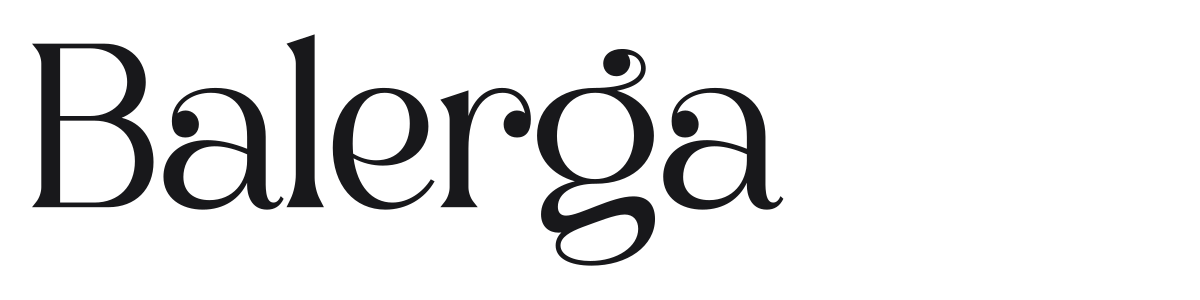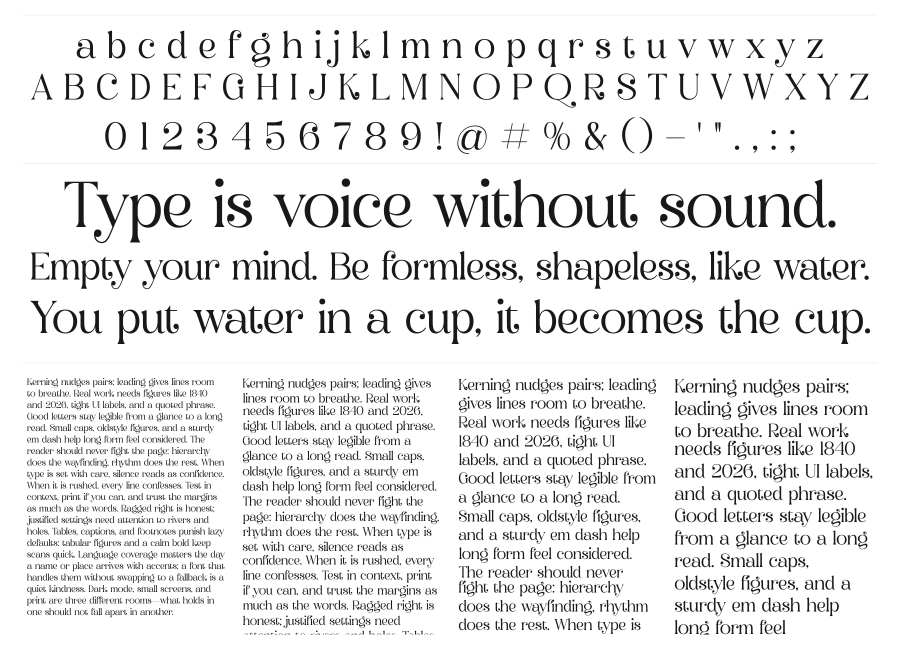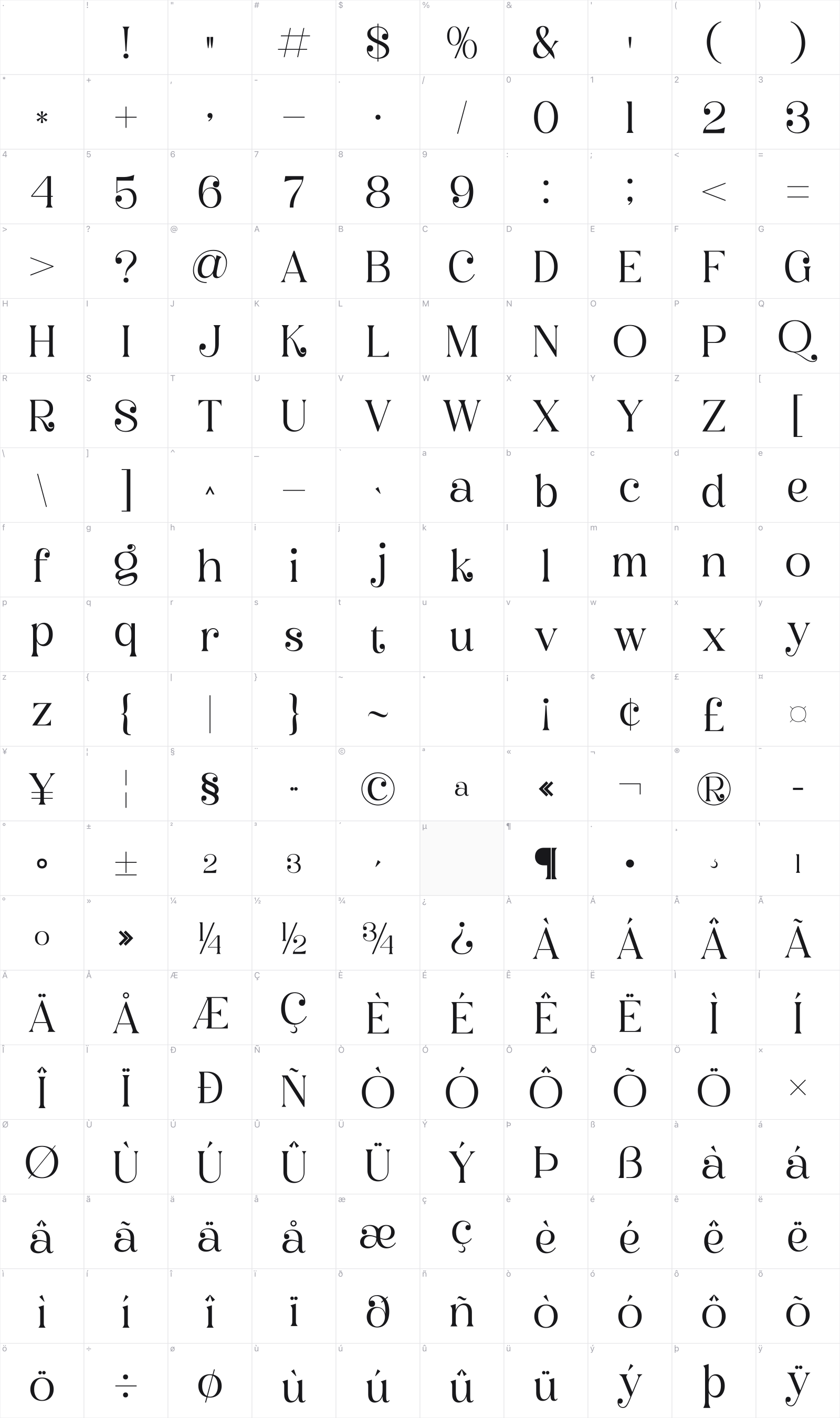
Balerga
Balerga is a high-contrast modern serif with deep Didone roots and a distinctly contemporary edge. Ball terminals punctuate the design with stylish flourishes, lending the otherwise rational structure a touch of warmth and personality. Strong at large sizes in editorial, branding, and fashion contexts.